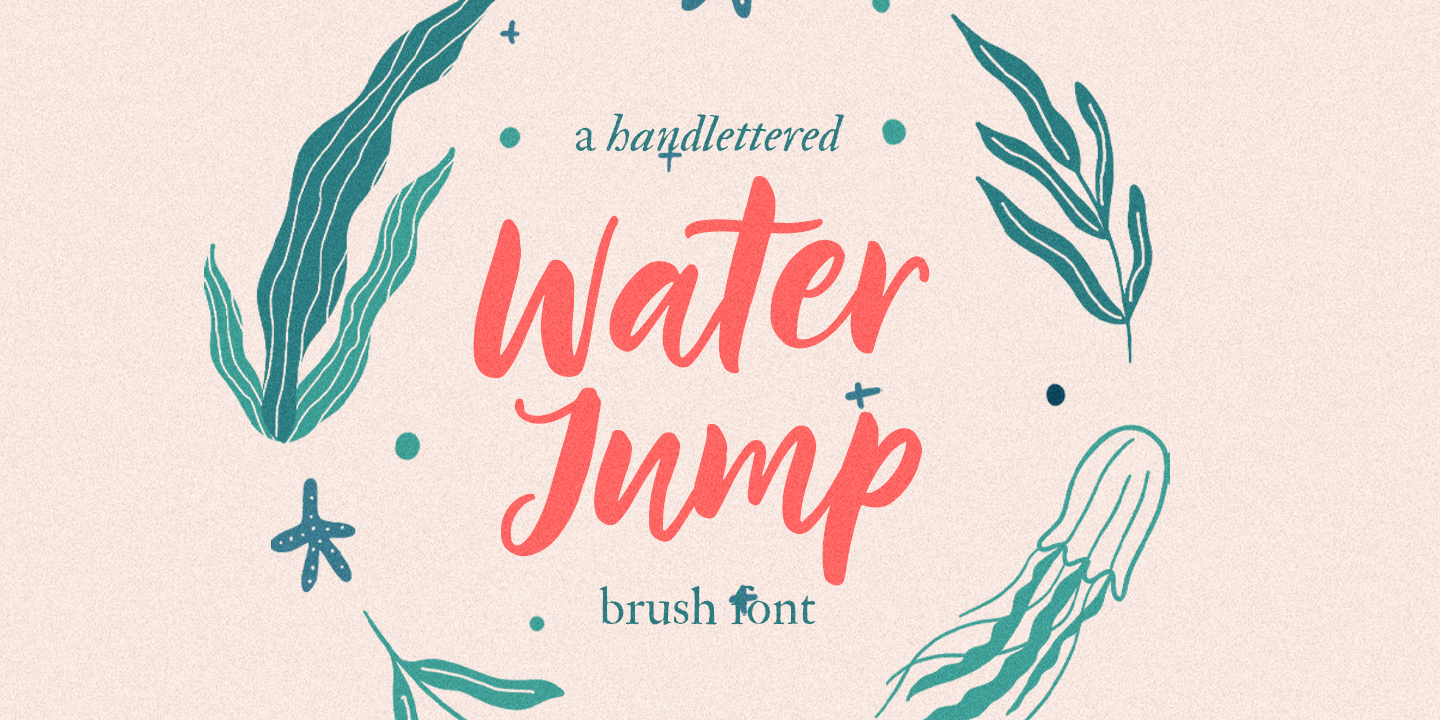
S Water Jump Font Free Download – Playful and Energetic Typeface for Creative Designs
Looking to add a splash of fun and movement to your design projects? S Water Jump Font Free Download is the perfect choice. This playful, hand-drawn typeface features lively strokes and a dynamic style that brings energy and personality to branding, posters, packaging, and social media graphics.
S Water Jump captures a sense of spontaneity and joy, making it ideal for projects that want to convey creativity and youthful spirit. Whether you’re designing logos, headlines, or promotional materials, this font adds a fresh and vibrant touch.
Jumpstart your typography with S Water Jump — a font that makes your designs splash with excitement and originality.